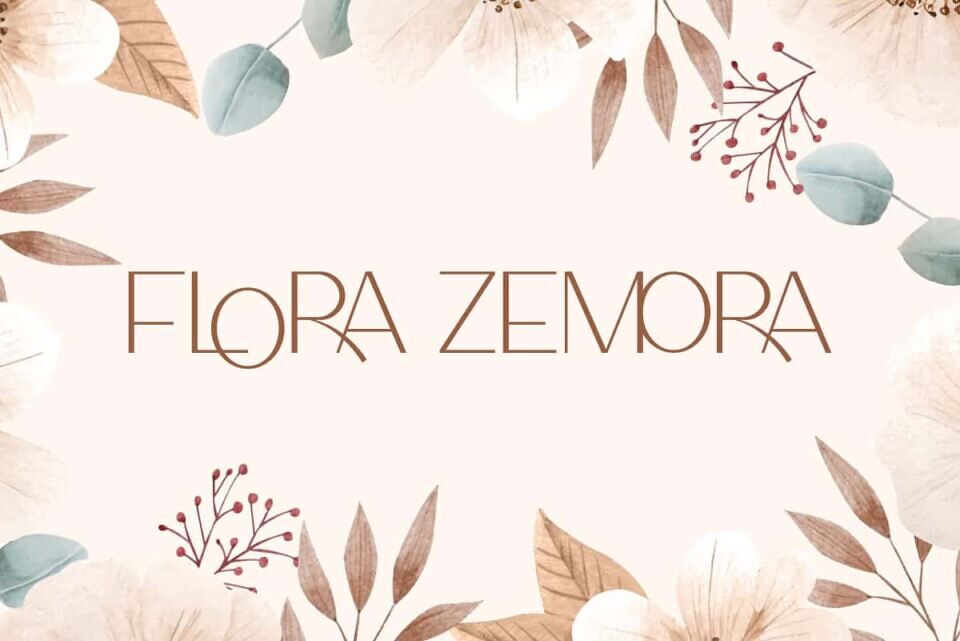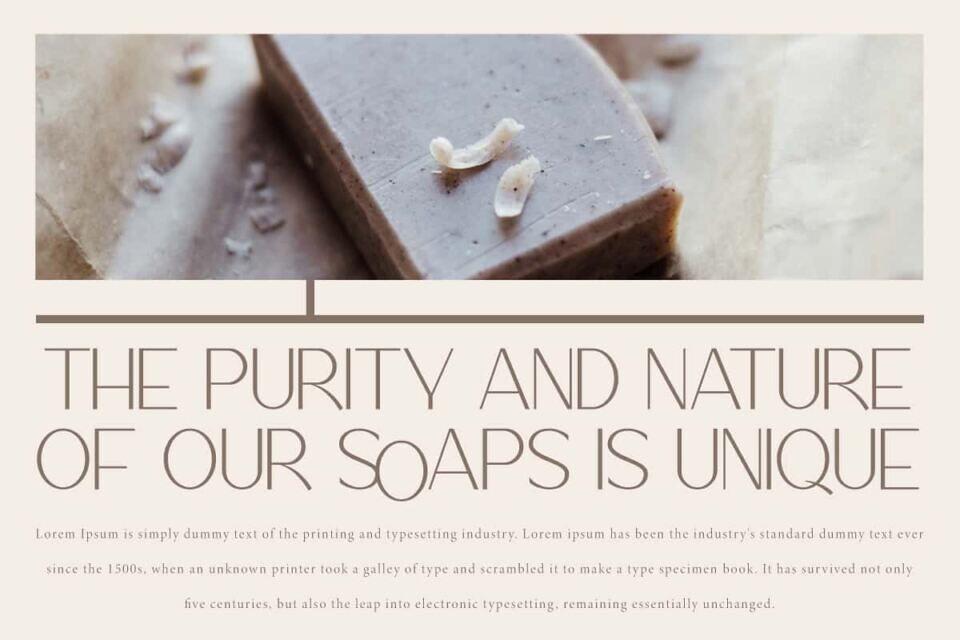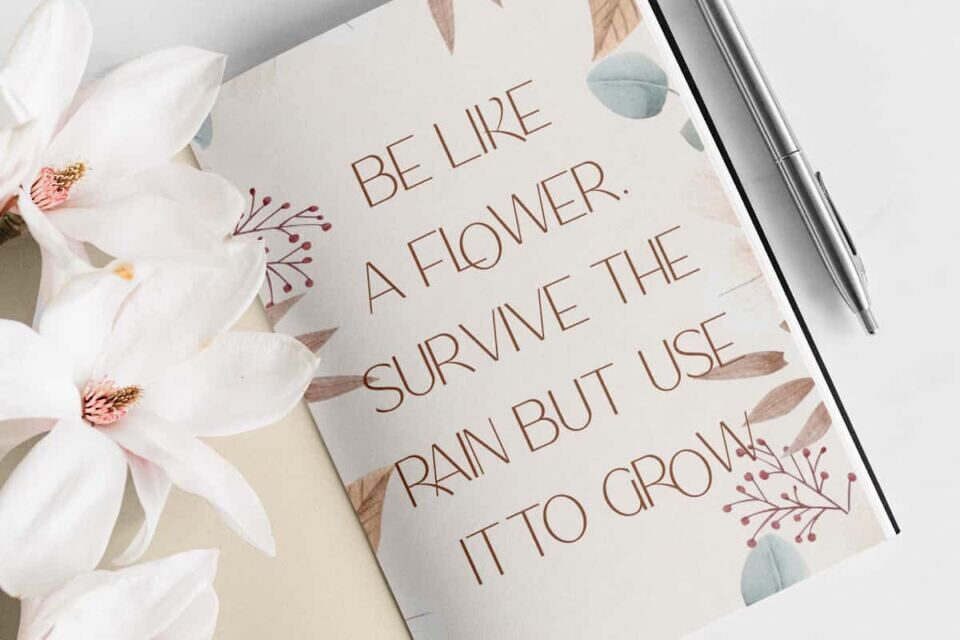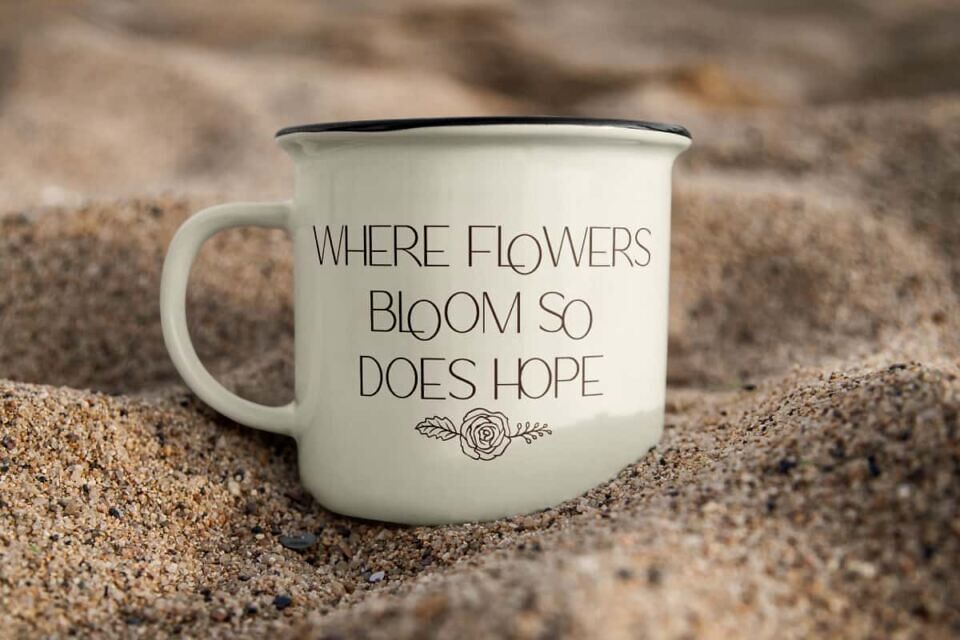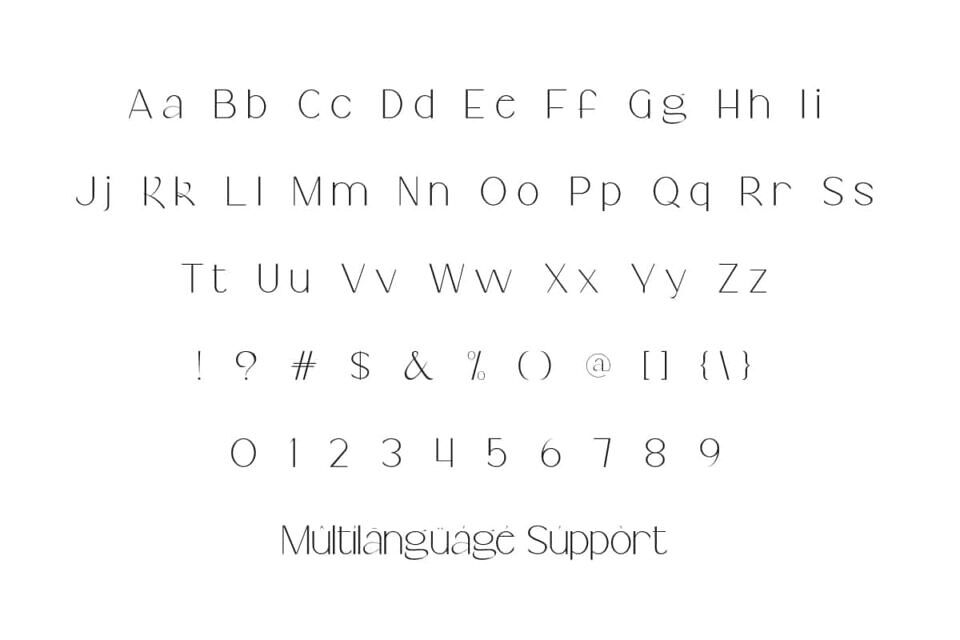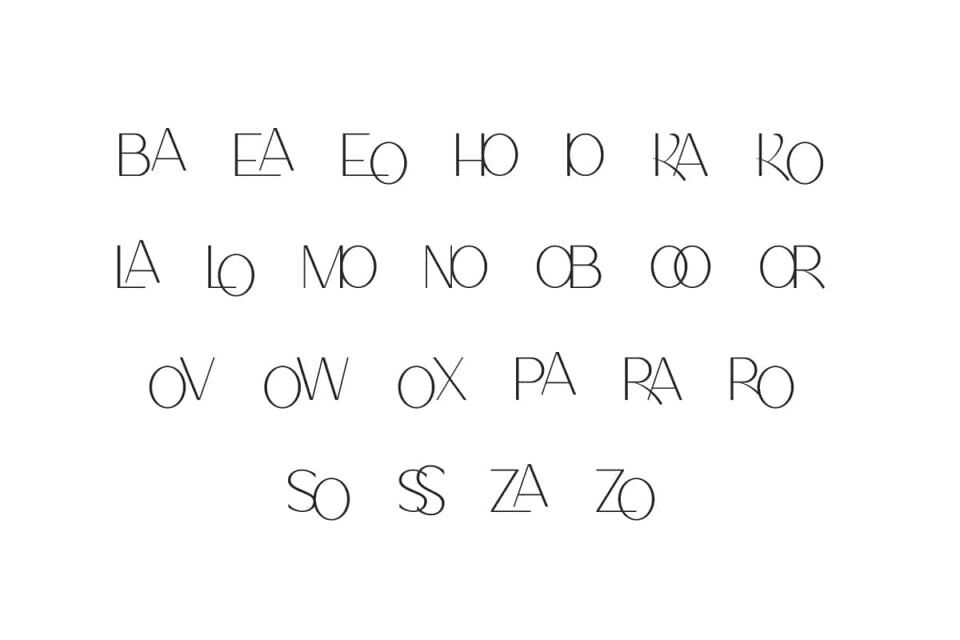
Flora Zemora Font is a modern sans serif display font that is very charming with all its minimalist impressions producing a premium feel. With a combination of ligatures that look unique, making this font suitable for use in blogs, cover, headers, headline, labels, logos, mockup, product packaging, quotes, screen print, signage, stickers, title, website and many more.